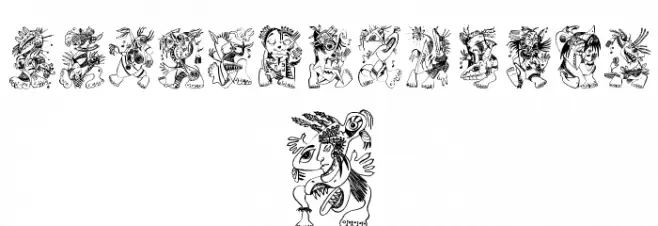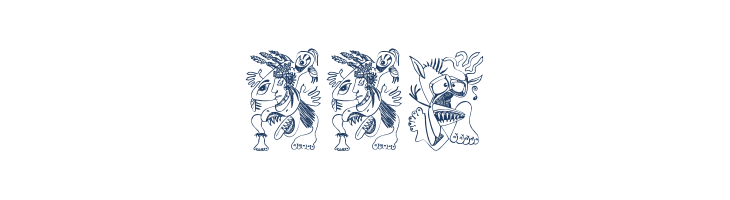
Z-Most Foot Font
| Anwendungsfall | Logos, Headlines, Artistic projects |
| Vorgeschlagene Projekte | Ideal for children's book covers, fantasy-themed posters, or creative branding projects that require a unique and artistic touch. |